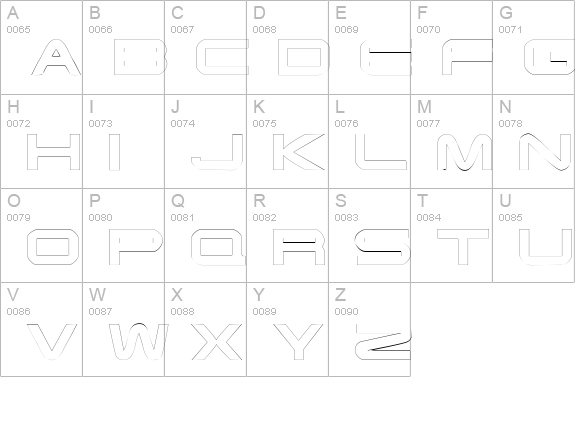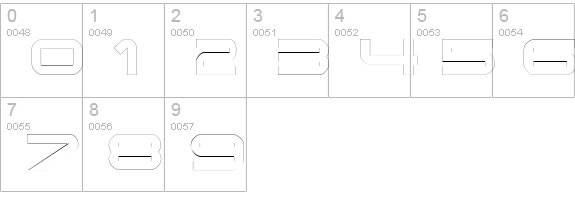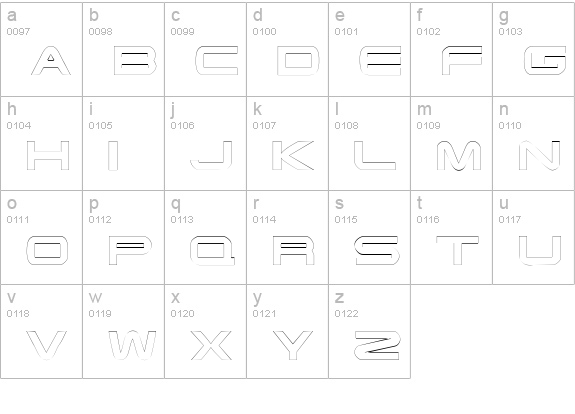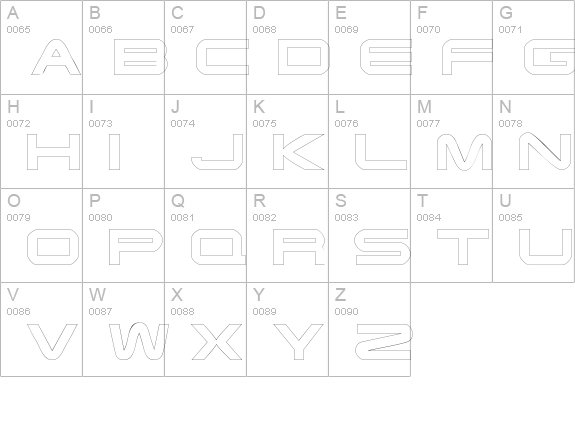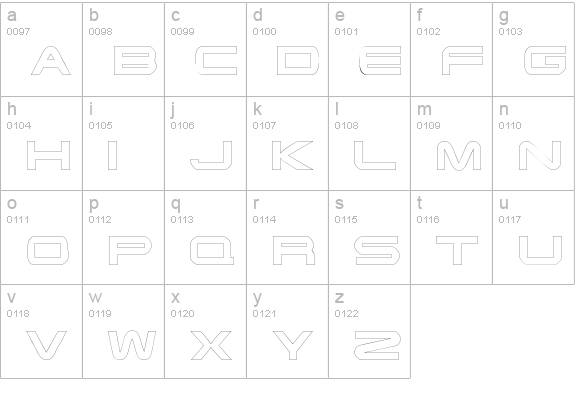
EndzoneOutline Font Details
EndzoneOutline font is a sleek and modern typeface that exudes creativity and style. Its clean lines and unique design make it perfect for a variety of projects, from branding to digital design. This versatile font is sure to make a statement and capture attention with its bold and eye-catching appearance. The best part? EndzoneOutline font is completely free to download at FontsMarket.com. This means you can add this stunning font to your collection without any cost, making it a valuable resource for all your design needs. Don't miss out on the opportunity to elevate your projects with the striking EndzoneOutline font, available for free at FontsMarket.com.